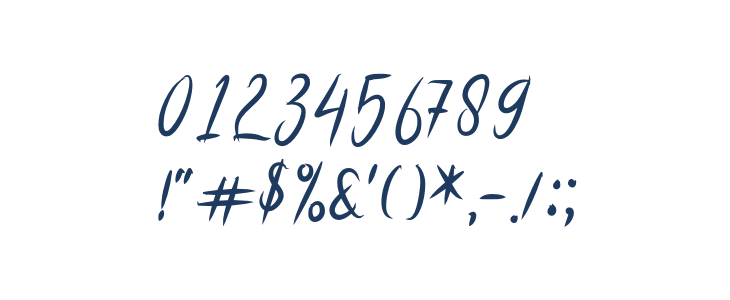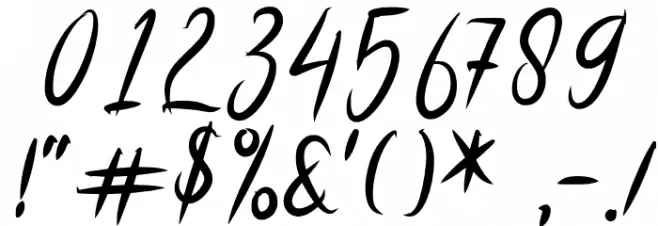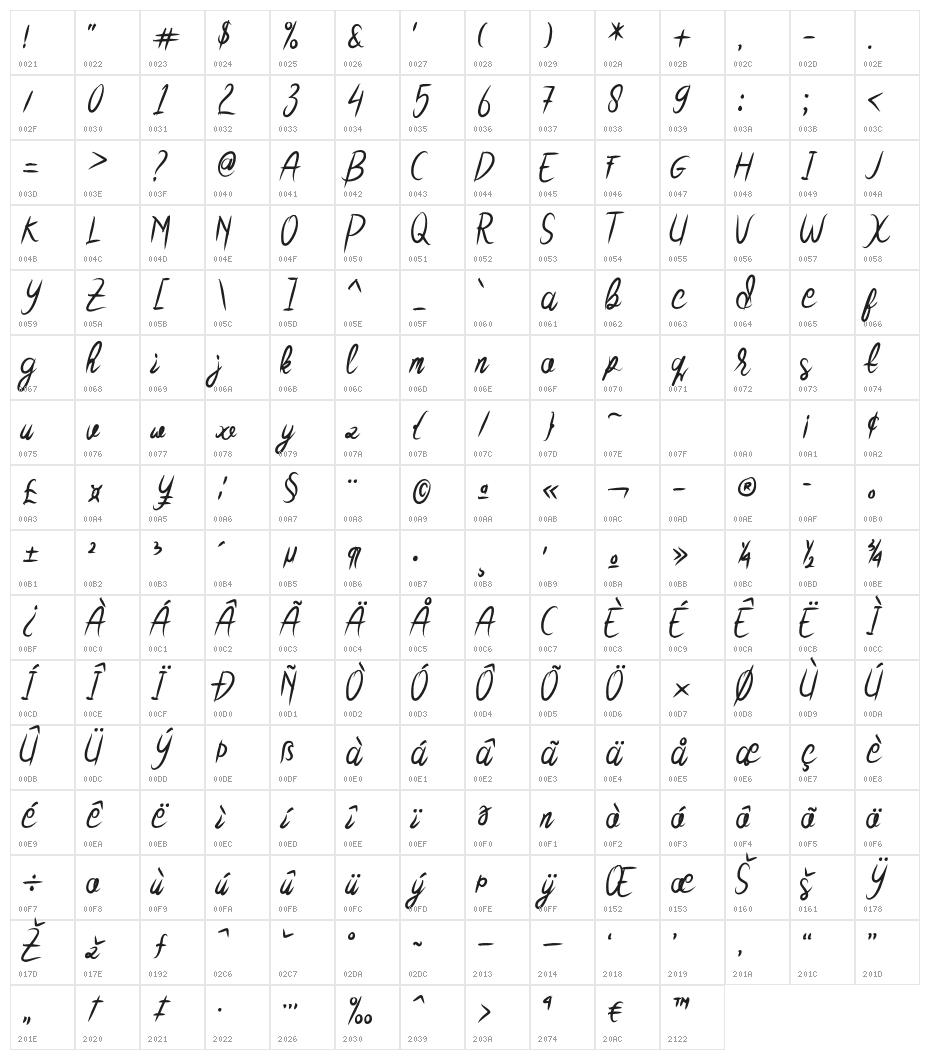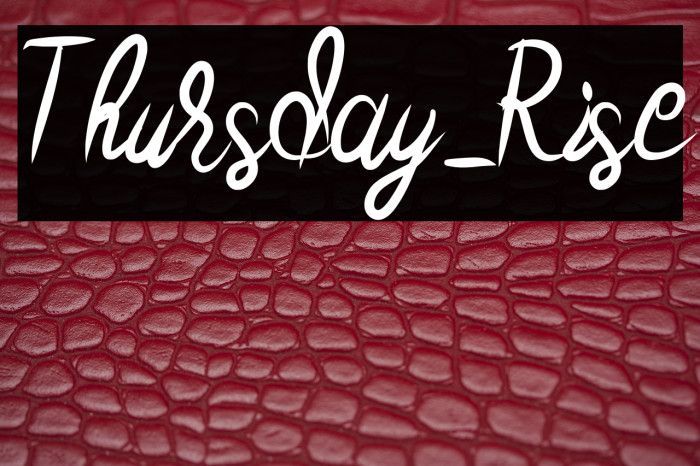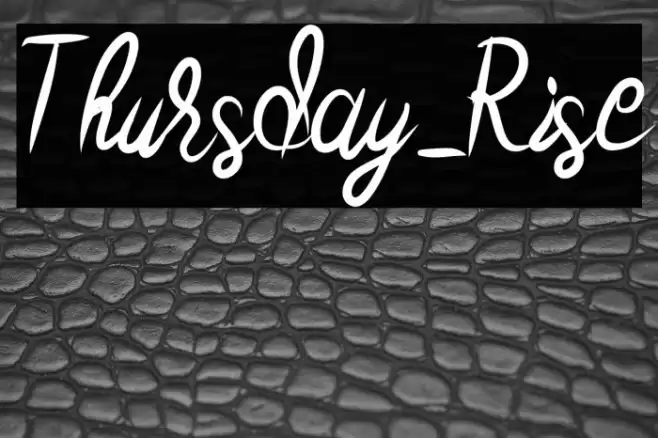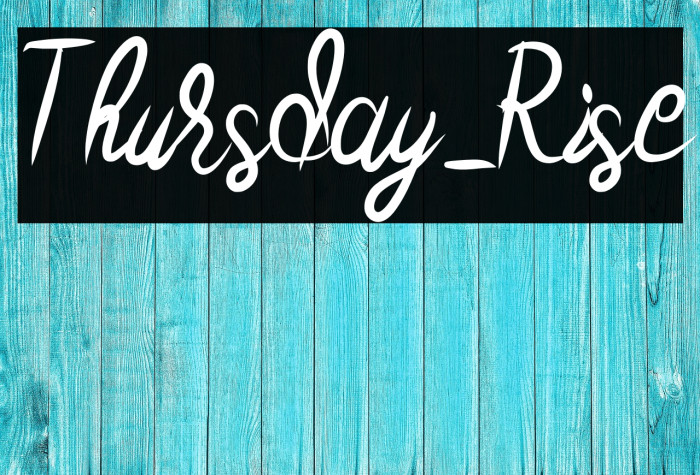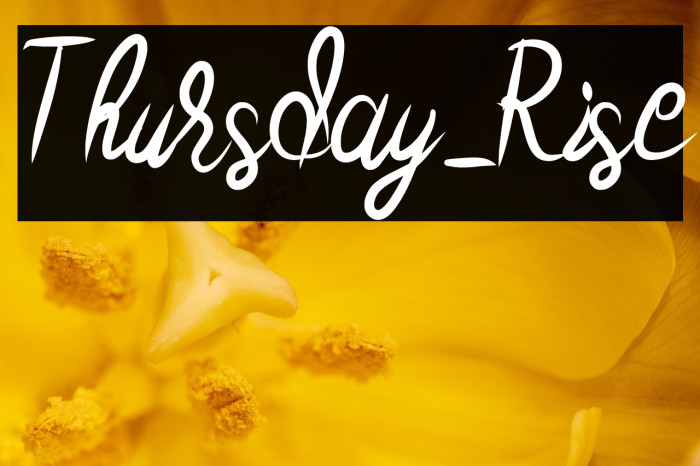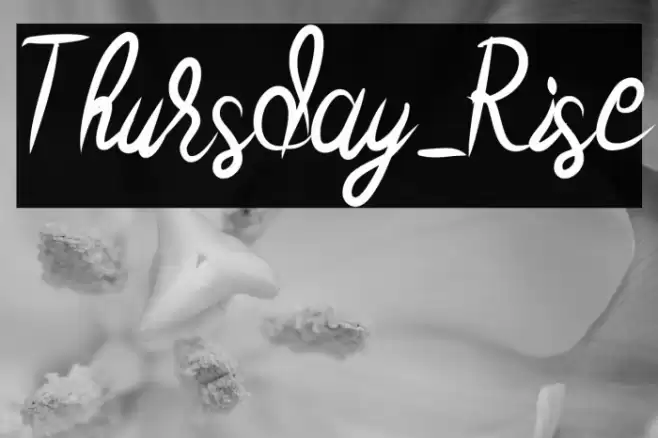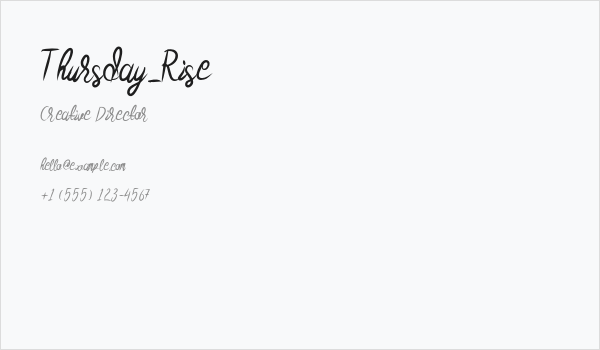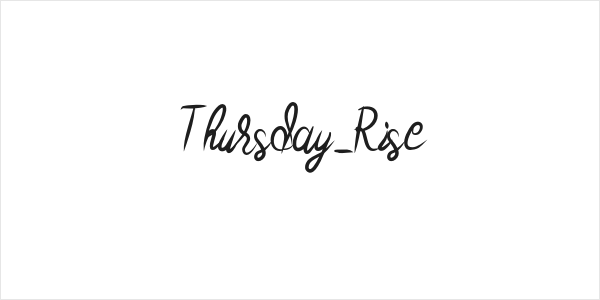
Thursday_Rise Font
Thursday_Rise Description
This font exudes a dynamic and energetic style, characterized by its flowing, cursive script. The letters are elegantly slanted, giving a sense of motion and fluidity. The strokes are varied in thickness, adding a lively contrast that enhances its visual appeal. The uppercase letters are tall and slender, while the lowercase letters maintain a consistent rhythm, creating a harmonious balance. The numerals and special characters are crafted with the same attention to detail, ensuring uniformity across all elements. This font is perfect for projects that require a personal touch or an artistic flair.